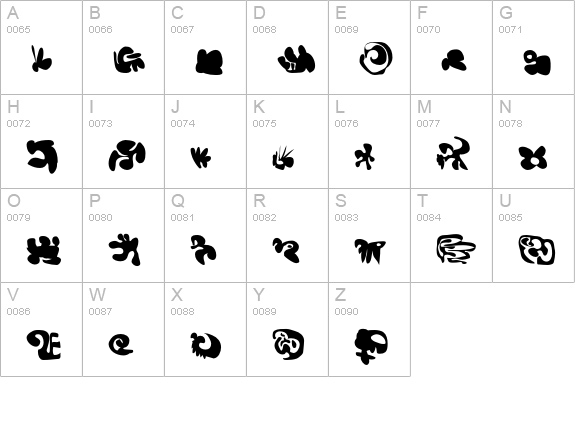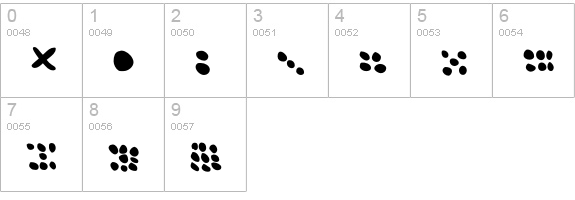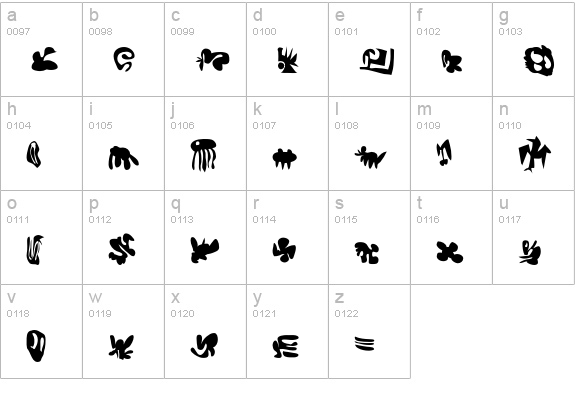
Introducing the Egg font, a delightful and unique typeface that will add a touch of whimsy and playfulness to any project. With its soft, rounded curves and charming letterforms, Egg will bring a sense of joy and creativity to your designs. This versatile font is perfect for a wide range of applications, from logo design and branding to packaging and invitations. Its friendly and approachable aesthetic makes it suitable for both children's products and sophisticated adult designs. But what sets Egg font apart is not just its delightful design—it's also the fact that it is freely available to download at FontsMarket.com. That's right, you can now enjoy the beauty and versatility of Egg font without any cost. Whether you're a professional designer or a hobbyist, this font is at your disposal, ready to bring your creative visions to life. Don't miss out on the opportunity to add Egg font to your font library. Visit FontsMarket.com today and download this charming typeface for free. Let Egg font be the cracking touch that elevates your designs and captures the hearts of your audience.